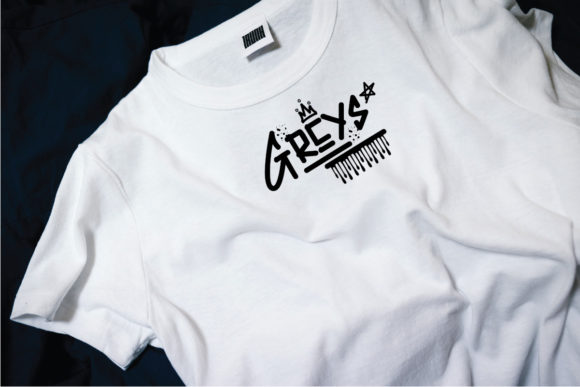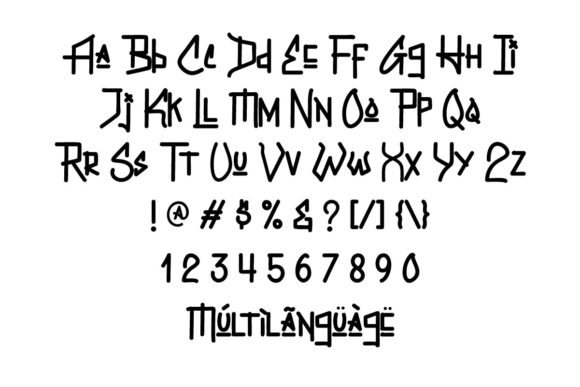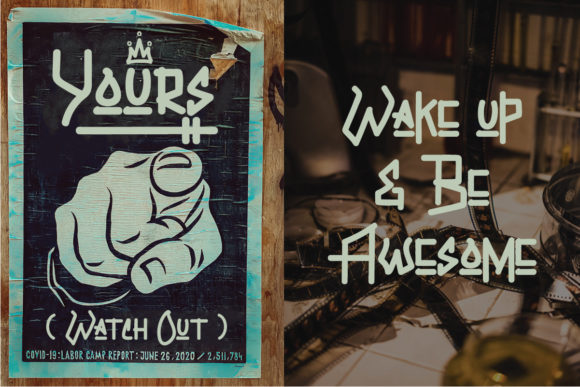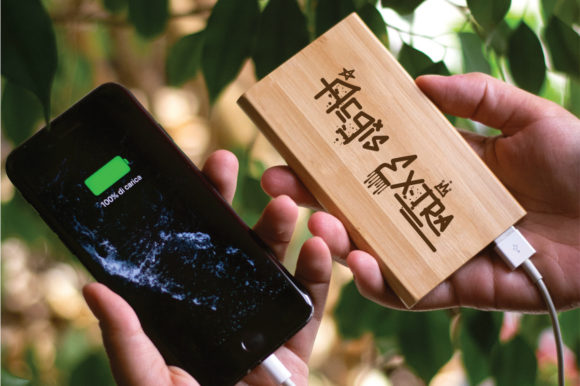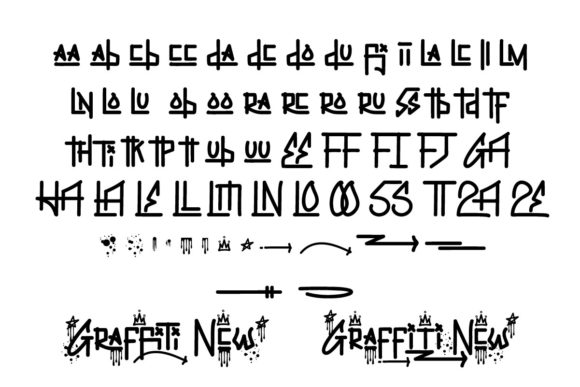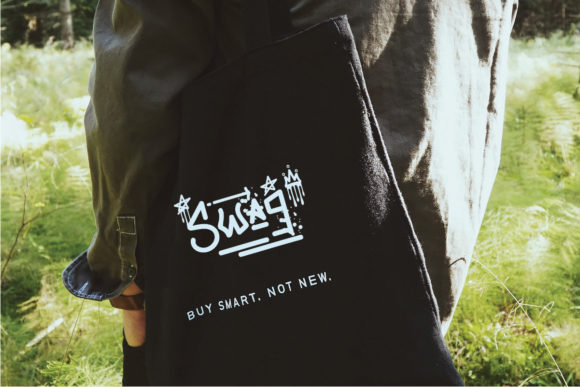
The Ultimate Graffiti New Font Guide: Unleash Your Creative Potential
Have you ever been in the middle of a design project, and suddenly, you’re stuck on finding the perfect font? I recall a recent experience where I was working on a horror poster design, and I just couldn’t find a font that captured the edgy, street-art vibe I was going for. That’s when I stumbled upon the Graffiti New Font, and it completely transformed my design. In this article, we’ll dive into the world of Graffiti New, exploring its features, uses, and everything in between.
What is Graffiti New Font?
Graffiti New is a display font that embodies the spirit of mural street graffiti. Inspired by street arts and classic artwork, this font boasts a unique and artistic style that will add an authentic touch to your designs. Whether you’re working on games, band covers, horror posters, mystery book covers, or headlines, Graffiti New is the perfect choice.
What I Love About Graffiti New Font ✨
- ✅ Unique and artistic graffiti style that adds an edgy touch to designs
- ✅ PUA encoded, making it easy to access glyphs and swashes
- ✅ Works great for various design projects, from posters to logos
- ✅ Highly versatile and customizable
While Graffiti New is an amazing font, there are a few things to keep in mind:
- 🤔 May not be suitable for body text or small font sizes due to its bold and artistic nature
- ⚠️ Some users may find the font a bit tricky to read, especially for extended text
The Designer Inspiration Behind Graffiti New
Graffiti New was inspired by the vibrant world of street art and classic graffiti. The font’s creator aimed to capture the raw energy and creativity of urban art, making it perfect for designers who want to add an edgy touch to their work.
Q: What is PUA encoding, and how does it benefit Graffiti New?
A: PUA (Private Use Area) encoding allows users to access a wide range of glyphs and swashes, making it easier to customize and personalize their designs.
Q: Is Graffiti New suitable for body text or small font sizes?
A: Due to its bold and artistic nature, Graffiti New may not be the best choice for body text or small font sizes. It’s recommended for display purposes, such as headlines and titles.